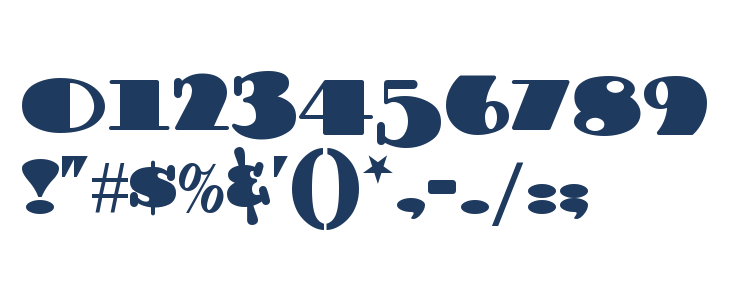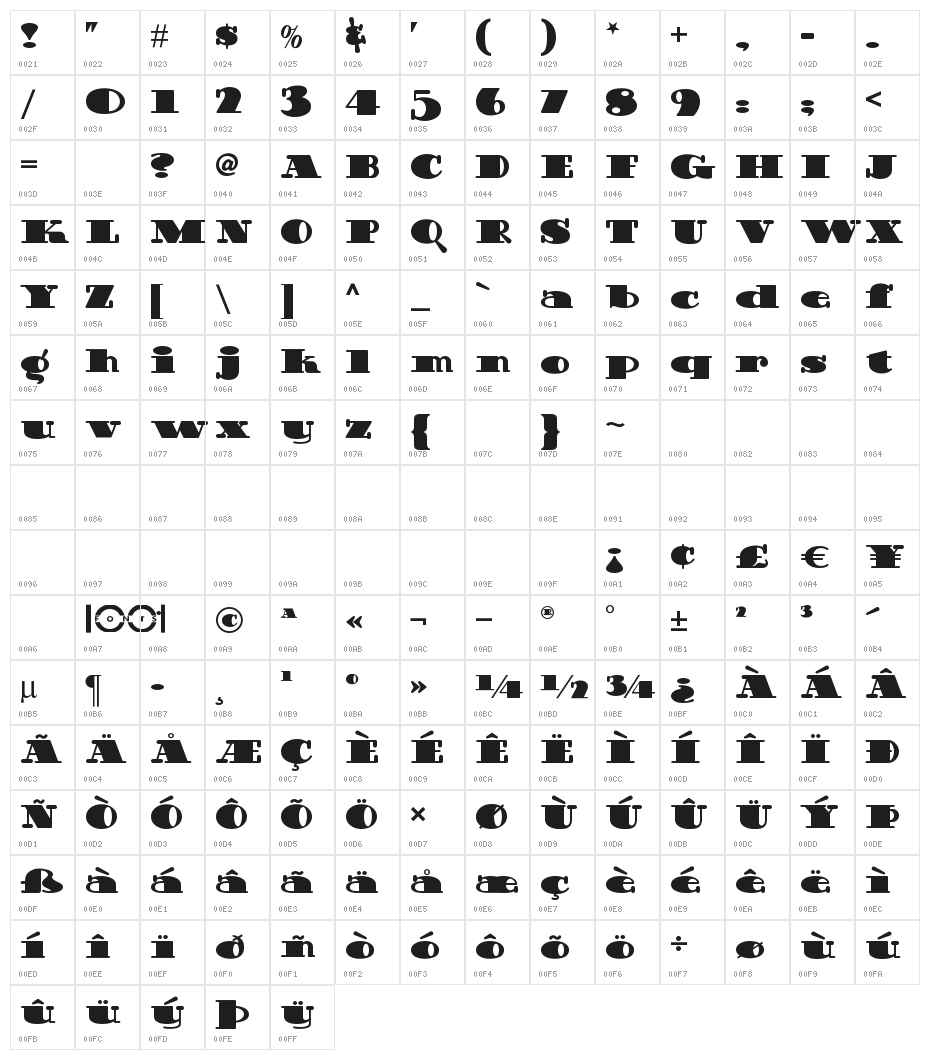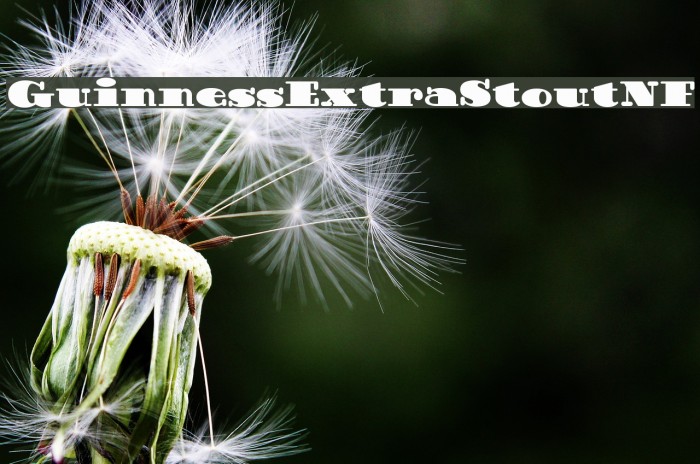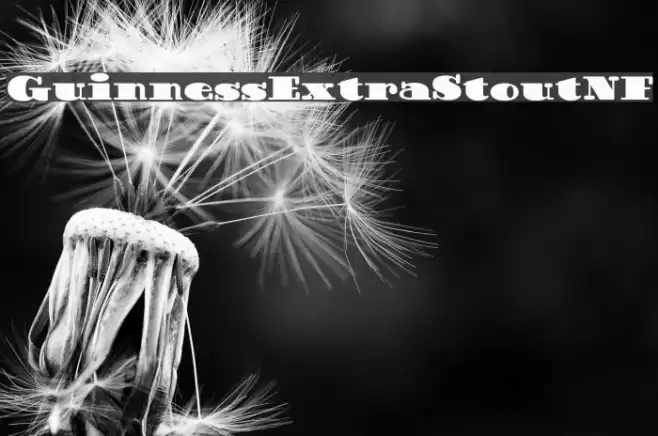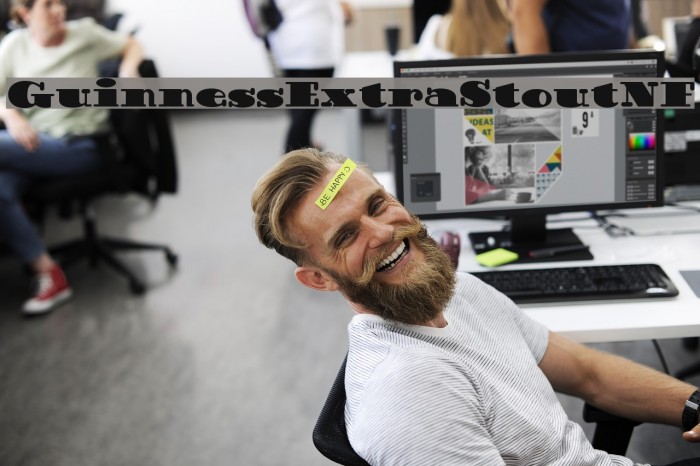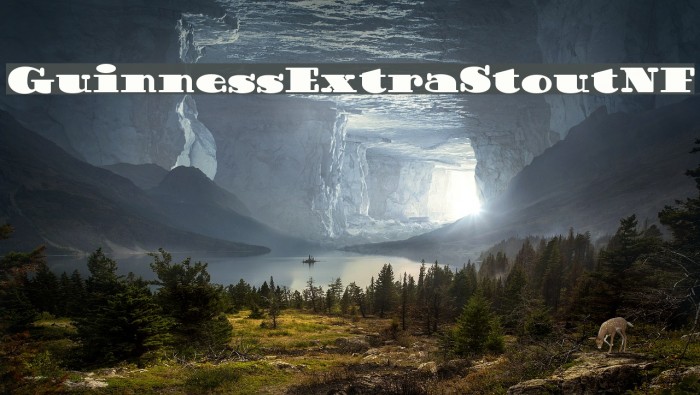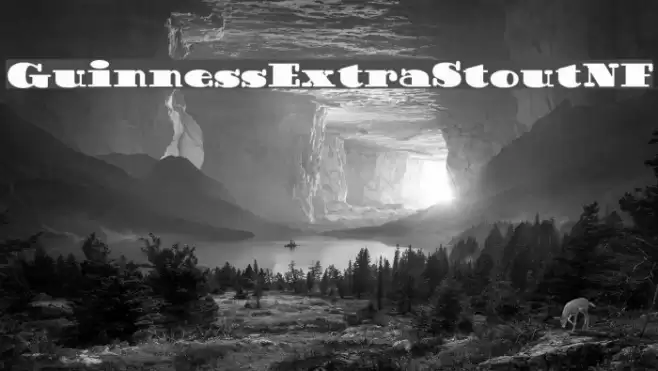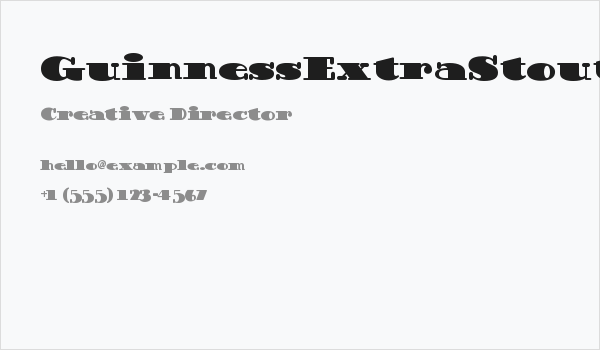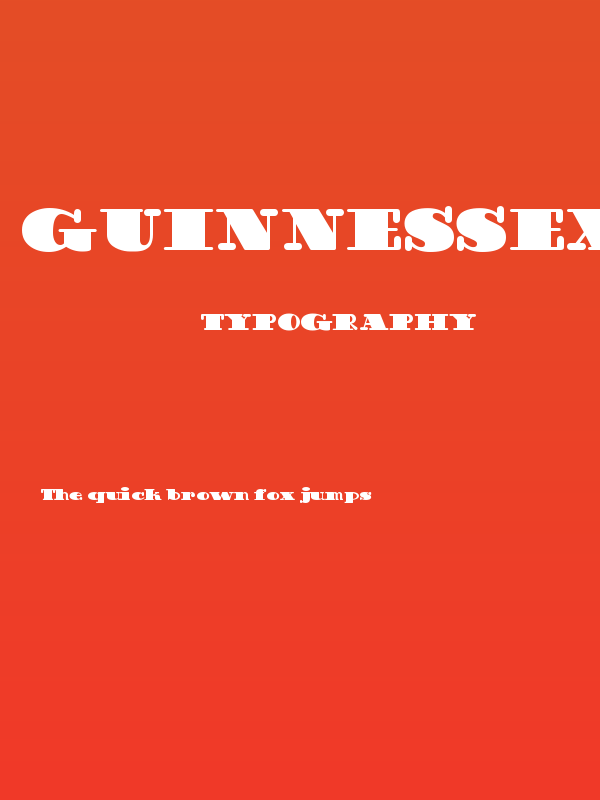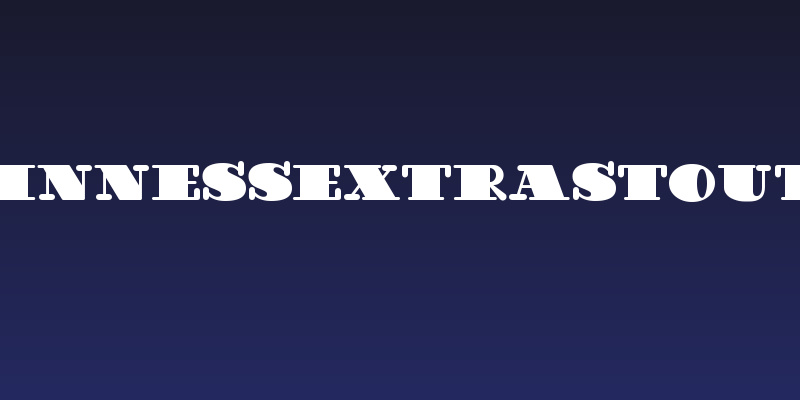
GuinnessExtraStoutNF Font
GuinnessExtraStoutNF Description
This font features bold, thick strokes with a strong presence, making it ideal for impactful designs. The characters are wide and have a distinct, heavy serif style that adds a classic and authoritative feel. The uppercase letters are particularly striking, with a uniform height and width that create a sense of balance and stability. The lowercase letters maintain the same boldness, ensuring consistency throughout the typeface. Numbers and special characters are equally robust, with a design that complements the overall aesthetic. This font's high contrast in stroke thickness enhances its readability and visual appeal, making it suitable for various design applications.
| Proposed Projects | Ideal for branding, packaging, posters, and headlines where a strong, classic presence is desired. |